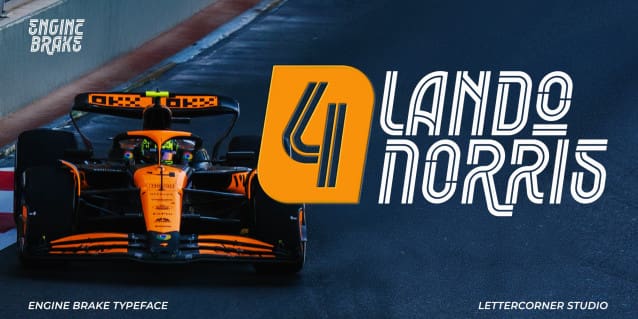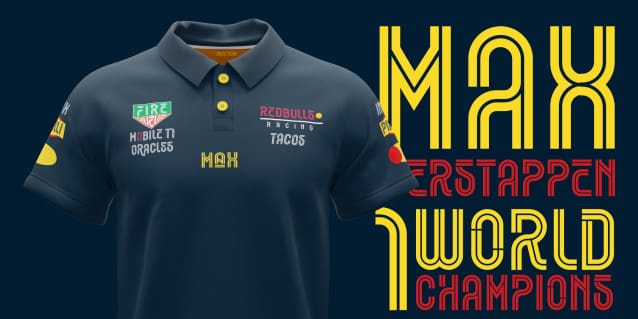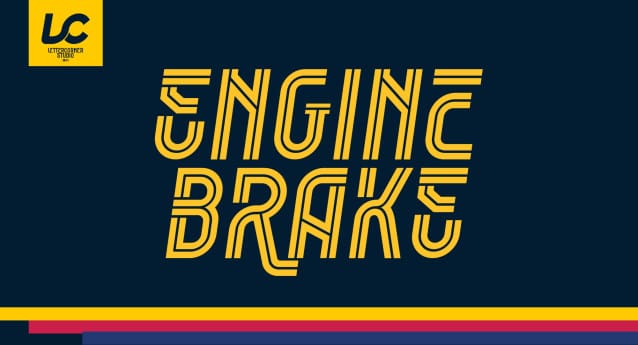
Engine Brake Typeface
Engine Brake Typeface is a bold condensed display font that is inspired by sports. The slight slants in many of the characters give this font an athletic feel. EngineBrake can be used diversely, but is particularly best in logos and large typographic applications.